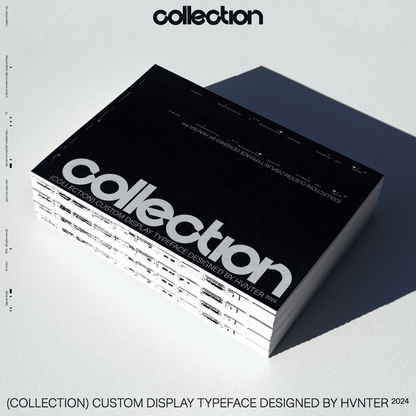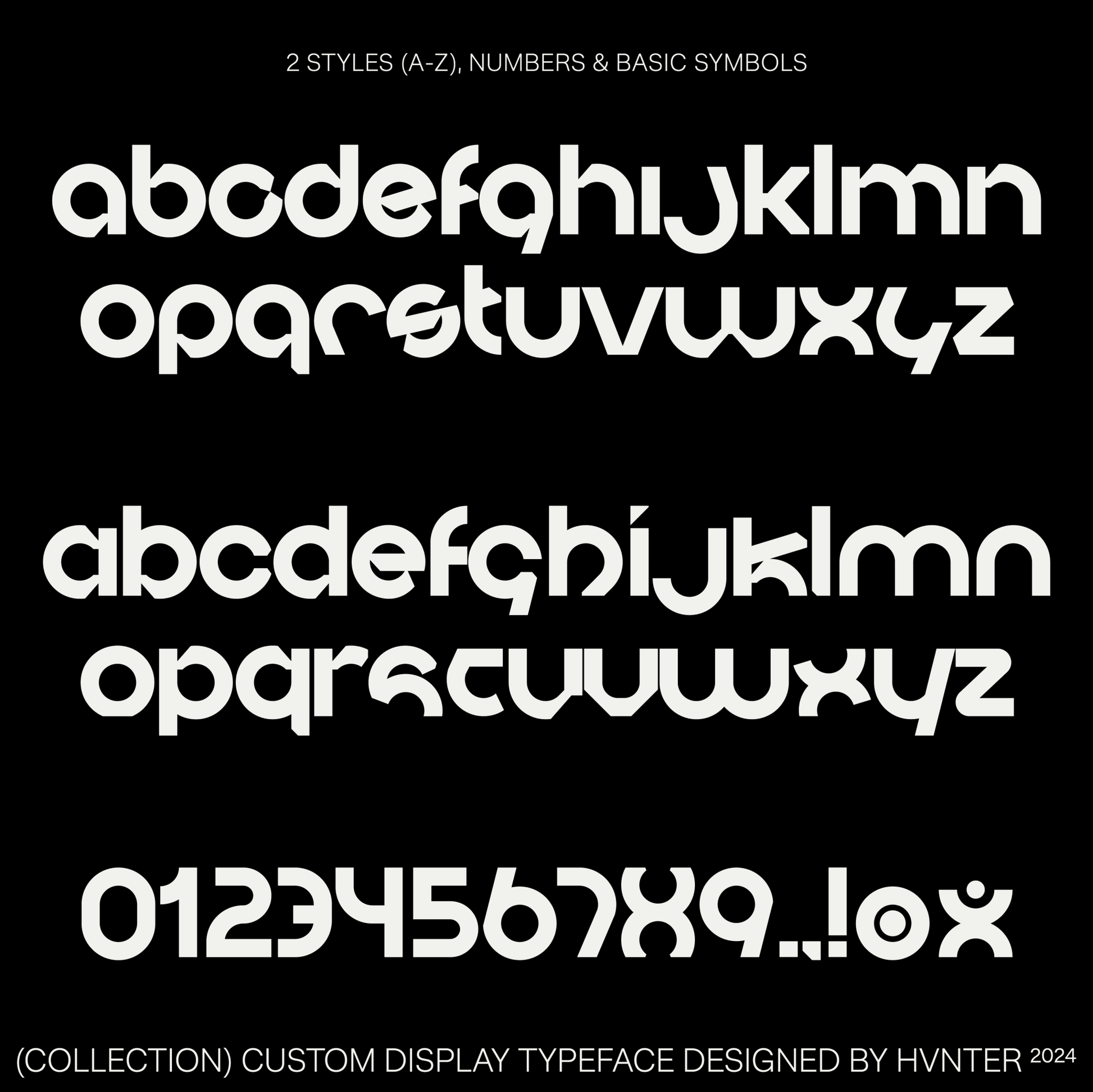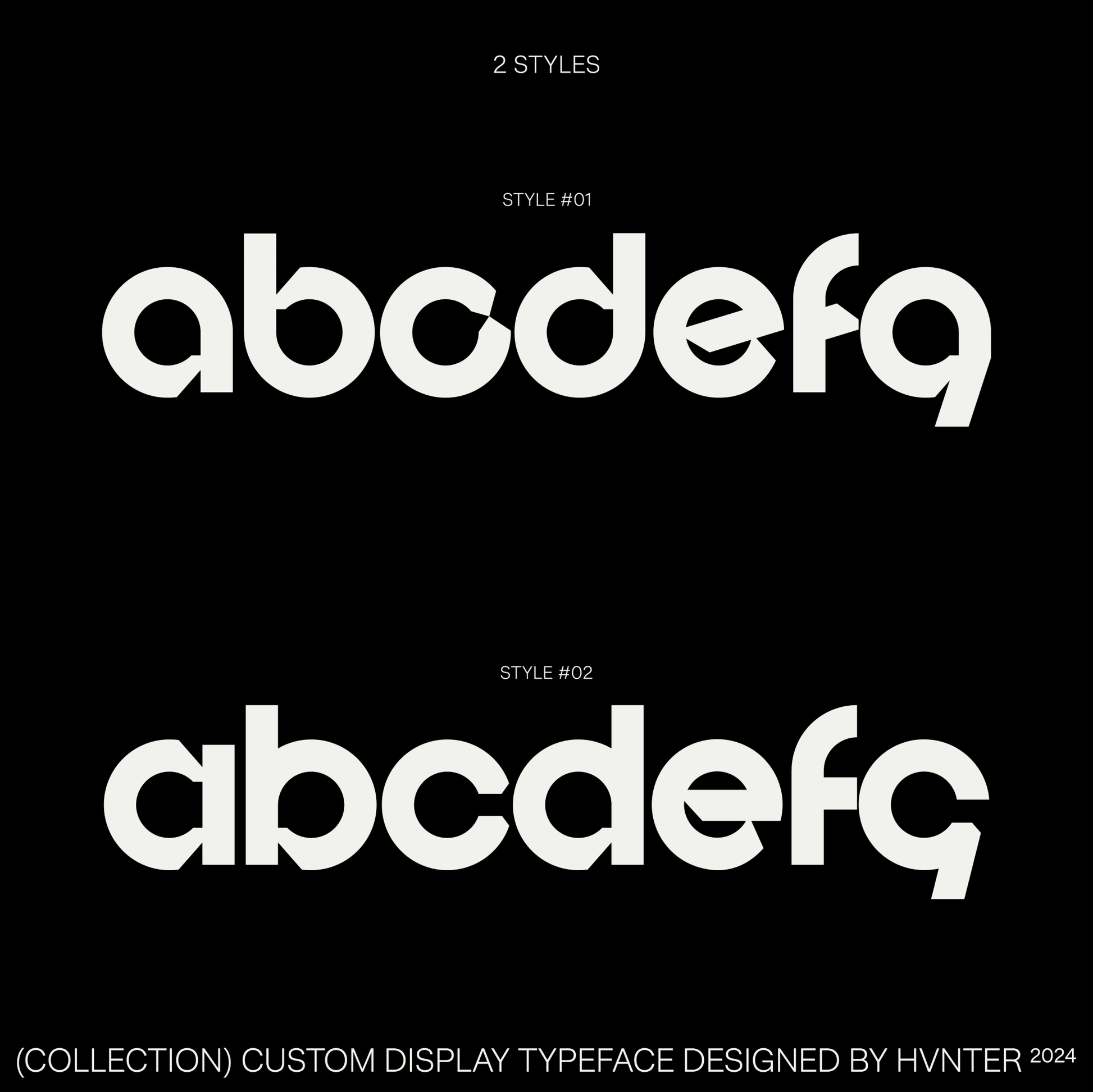
Collection — A Display Typeface
Collection is a custom display typeface designed by HVNTER, built for impact, clarity, and modern attitude. Created as a true statement piece, Collection balances bold geometric forms with subtle disruptions that give it a distinctly contemporary edge. This isn’t a neutral workhorse font—it’s designed to carry identity, making it strong enough to anchor logos while still flexible enough for broader creative systems.
The letterforms are confident and sculptural, with smooth curves, strong verticals, and unexpected cuts that add personality without sacrificing legibility. Its weight and structure give it the presence needed for logo design, wordmarks, and brand marks that need to stand on their own, while its refined detailing keeps it equally at home in posters, album artwork, editorial layouts, fashion lookbooks, and digital experiences.
The typeface includes two distinct styles, covering A–Z uppercase and lowercase, numbers, and basic symbols, allowing designers to build cohesive visual identities without losing variation or rhythm. Whether used tightly kerned for logos or spaced out across a layout, Collection maintains its authority and visual confidence.